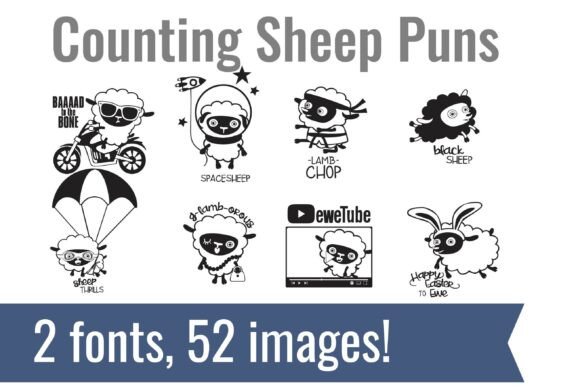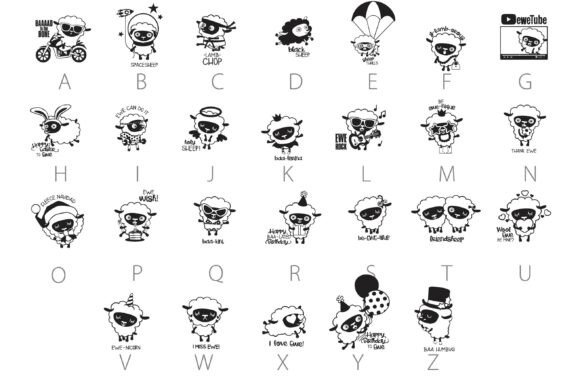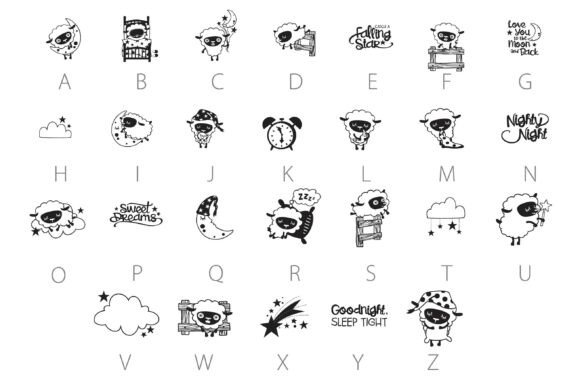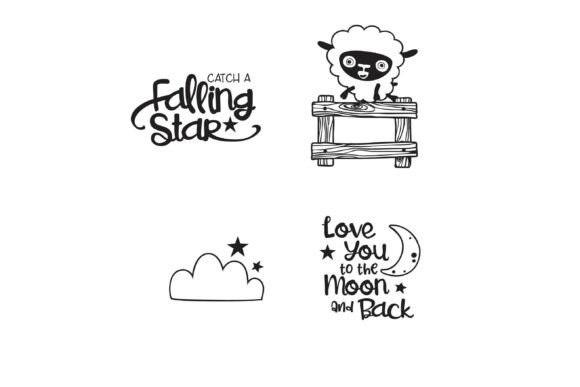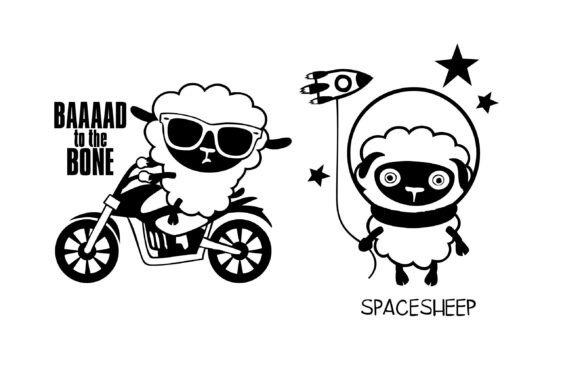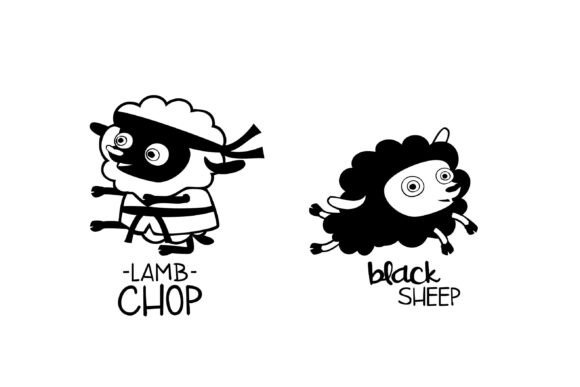
Introduction to Counting Sheep Dingbats Font
As you sit at your desk, surrounded by scraps of paper and half-finished projects, you gaze out the window at the sunset. The sky is painted with hues of orange and pink, and you can’t help but feel a sense of calm wash over you. It’s moments like these that inspire creativity, and you can’t wait to dive back into your next project.
Whether you’re a seasoned designer or just starting out, having the right resources at your fingertips can make all the difference. That’s where the Counting Sheep Dingbats Font comes in – a delightful addition to any creative project. With its whimsical charm and high-quality design, this font is perfect for adding a touch of magic to your work.
Key Features of Counting Sheep Dingbats Font
- High-quality dingbat font designed for creative projects, perfect for adding a whimsical touch to your designs.
- Features a transparent background, allowing for easy layering and blending with other design elements.
- Includes a range of cute sheep illustrations in various poses and expressions, ideal for use in children’s books, educational materials, and other design projects.
- Perfect for use in digital design projects, such as infographics, posters, and social media graphics, as well as print projects like business cards and brochures.
Honest Review: Counting Sheep Dingbats Font
I recently came across the Counting Sheep Dingbats Font, a quirky design resource that’s perfect for creative projects. One of the standout features of this font is its transparent background, which makes it incredibly versatile. You can use it on its own or combine it with other design elements to create a unique visual identity.
What works well: ✨ The font is well-designed, with a clear and consistent style that’s easy to read. The dingbats themselves are cute and add a playful touch to any design. I also appreciate the fact that it’s a free download, making it accessible to designers of all levels.
Limitations: ⚠️ While the font is cute, it’s not particularly sophisticated. It may not be suitable for professional or high-end designs where a more refined aesthetic is required. Additionally, the font is limited in terms of customization options, which may limit its appeal to designers who prefer more flexibility.
Overall, I’d say the Counting Sheep Dingbats Font is a fun and creative design resource that’s perfect for personal or small-scale projects. It’s a high-quality font that’s easy to use and adds a unique touch to any design. If you’re looking for a free design resource to add some whimsy to your next project, this font is definitely worth checking out.
- Perfect for: personal projects, small-scale designs, and creative projects
Some common use cases for Counting Sheep Dingbats Font include creating fun and playful designs, adding a touch of whimsy to your projects, and creating custom graphics and illustrations. To get the most out of this font, be sure to experiment with different font sizes, colors, and formatting options to achieve the desired effect.